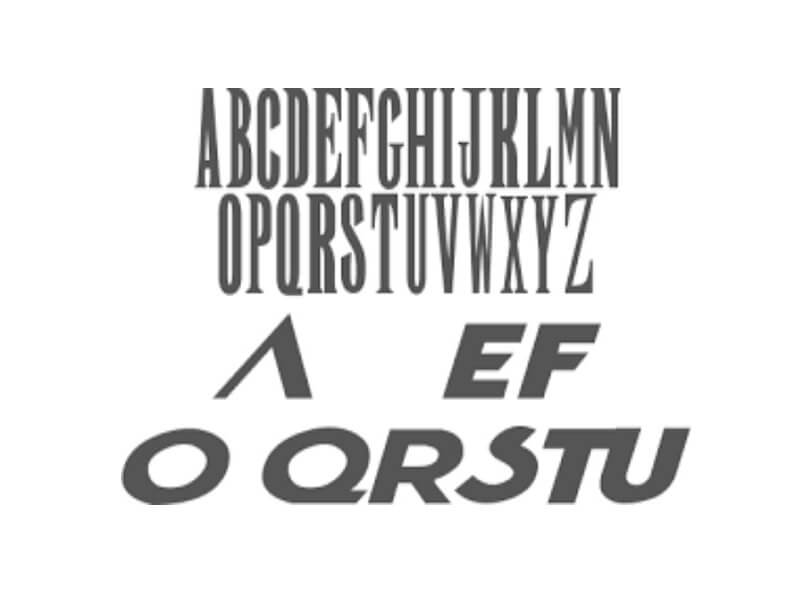
Font Like Final Fantasy
Font Like Final Fantasy. Looking for final fantasy fonts? Fans don’t like the teeny, tiny font in the final fantasy pixel remasters, but that’s not stopping them from fixing it.
It Uses A Blocky Angular Style Devoid Of Curves To Create A Bold Display Font That's Great For Darker.
[The Final Fantasy Pixel Remasters Have Launched On Steam, And They Bring Some Welcome Changes To The First Games In The Final Fantasy Series.
Loki fantasy book fonts (ttf, otf) loki is a fantasy font with a different flavour. That is, its designers have chosen a beautiful 80s font that has been known and released for the past three decades. Fans don’t like the teeny, tiny font in the final fantasy pixel remasters, but that’s not stopping them from fixing it.
Final Fantasy's Recently Revealed Pixel Remasters Somehow Found A Way To Ruin The Original Games' Font.
Size final fantasy by juan pablo reyes altamirano. The alexandria or garnet font used in moguri mod really looks like if not the. In the year 1987, square enix.
Cornelia sans is a pixel font recreation of the dialogue font from final fantasy origins on playstation 1. Every font is free to download! Classical), 35 characters in total.